Juan Bruce on travelling, old maps, and designing Noort
Some people’s paths are clear and straight, while others take several detours before they settle in. Juan Bruce is a traveller at heart, and now, with his release influenced by 17th century Dutch maps, Noort, he taps into that traveller’s spirit within the type world. Josh Farmer discussed Juan’s background, his process, and current research projects for an interview that highlights where research meets design.
You just released a fantastic type family through TypeTogether called Noort, and we’ll talk about that in a few minutes. But first, tell us a bit about yourself. You’re an artist or designer, correct?
I would say a designer more than an artist, but I believe type design is definitely an art. It’s a very crafty discipline. We must deal with patterns, drawing, visual rhythm, black and white shapes, and all sorts of artistic issues.
‘Cohen’ by Juan Bruce.
Juan Bruce is an independent type designer, researcher, and illustrator based in Chile. In 2010 he acquired a BA in Graphic Design from the Diego Portales University, after which he started his career in the typographic field. He was able to specialise in this discipline after being awarded the Becas Chile scholarship to study abroad and thus complete the MA in Typeface Design at the University of Reading. Juan received his MA with Distinction in 2015, and has since focused his work on text typefaces and multiscript typography for Northern Indian scripts, particularly Bengali.
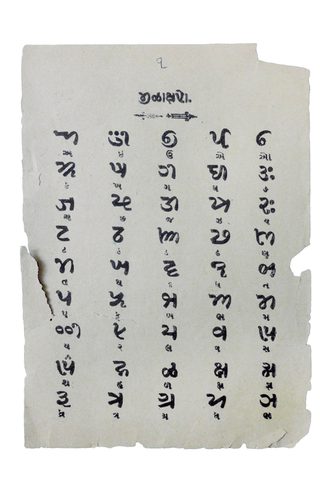
Khojki Specimen, Ismaili Printing Press, 1942.
Can you describe your path for us? What kind of schooling led you to end up creating fonts? And why are you attracted to type design?
My background is in graphic design, but before that I spent three years drifting between programmes in architecture and the art school. It was during my BA in Graphic Design when I found my interest in typography. I saw it then as something quite unattainable, reserved for experts. I see that this prejudice intimidates many from getting into type design seriously, but it shouldn’t be like that. It’s very rewarding.
Sometimes I’m a bit disappointed about the demands of graphic design, which too often only fulfils shallow requirements that are mostly conceived for short-term gains. Type design, on the other hand, besides the challenges it offers in complexity, is definitely an upgrade in terms of the contribution of your work to the rest of the world. It tries to fill voids within more concrete aspects of society, such as language and writing. I’ve enjoyed pivoting to this discipline quite a lot.
Process sample for Noort.
Noort, from early sketch to final digital font.
You graduated with a Master of Arts in Type Design (MATD) from Reading University in the UK. Tell us about the programme, the processes you went through, and the instructors you had.
I remember it as a great year in all respects. It was constant challenges, an elevated level of discussion, great teachers, and extraordinary friends. The programme is very practical, as it should be, with a big foot in academic research. The research portion was unknown to me, but I ended up fascinated and with great expectations to include research as an integrated part of my professional career. World-class teachers, such as Fiona Ross, Dr Gerard Unger, and Gerry Leonidas, encourage students to understand type in its context and to see typography beyond the practical skills you might develop. To me, that’s the central manifesto of the programme.
And did your illustration skill have any bearing on mastering the material?
My illustration style is rougher, and type design is concentrated detail. Drawing letters is no different than drawing anything else, but you judge differently. When evaluating your work, you must move to a broader discernment. Yes, in the end you illustrate letterforms, but with the intention that they function alongside other letters; it requires more attention. Your little creations need to behave as a team under firm and “regulated” reading parameters. That’s the major difference from other artistic disciplines — you must restrain your creativity within a very narrow margin of accepted conventions. The eye and your judgement become your main tools at the end, and they need time to be trained.
You’re married, right? Were you married during the programme, and how did you balance the school requirements with personal responsibilities?
Yes, we were married then. Vale enjoyed the UK quite a lot, though she wasn’t a fan of the early winter dusk. She did a lot of things on her own while we were there, but she also hung out in the department quite a lot. Even though her profession has nothing to do with typography, she seemed to fit in easily with the group and even enjoyed going with us to the Plantin Moretus Museum. So I would say for us it was not something difficult to balance. On the contrary, she was a great support and the best company.
17th century map detail — with sea monster — which served as partial inspiration for Noort.
One way your new type family, Noort, is being described is as a way to wrangle huge amounts of information that has multiple layers. Walk us through the process of creating Noort. How did it come about?
It was always a cartographic project. I saw great potential in the rough and fast lettering of 17th century Dutch maps, but then I began experimenting with functionality for truly small scales to the point of absurdity. I tried horrible ink traps and huge x-heights — good fun and interesting findings, but poor design results. Noort now has rather conventional proportions, but it still keeps resilient features. Some traits are better appreciated in larger sizes, so I think it could have great performance in editorial contexts as long as an extra point or two of leading is added. Isolated words, such as on maps or some information design layouts, are primary uses, too. But, as I said, I like the way it works in paragraphs, especially when combined with the italics.